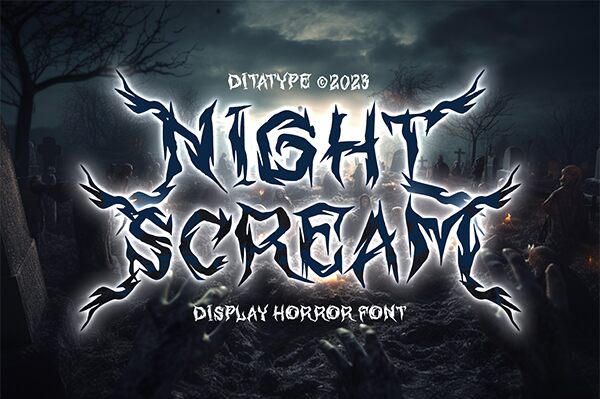
Designed by Ditatype, Night Scream captures the essence of horror with its distinct and scarifying aesthetic. This display font features jagged, uneven edges reminiscent of shadows lurking in the night. Its bold and dark strokes convey an eerie atmosphere, making it perfect for invoking suspense and unease.
Ideal for horror-themed posters, event flyers, Halloween invitations, or any project that demands a touch of terror, Night Scream adds a dramatic flair to your designs. Allow this unique font to transform your text into a visual scream that captivates and haunts its audience.